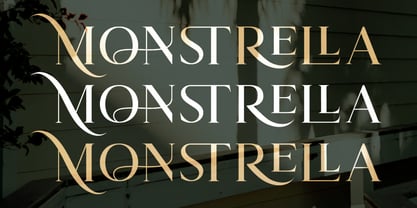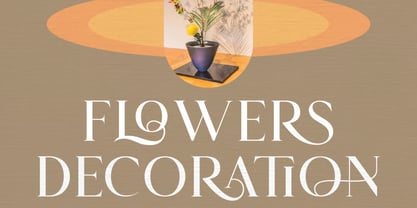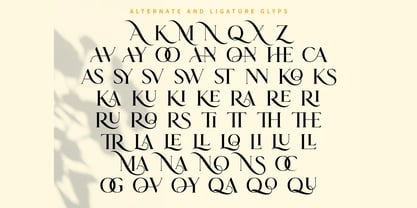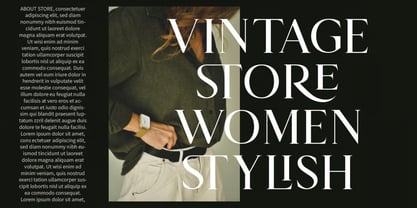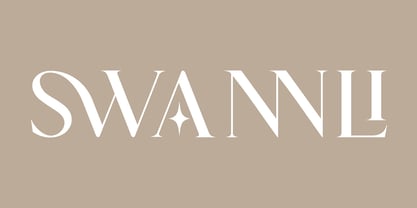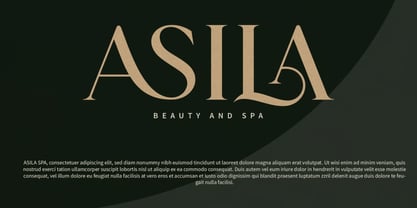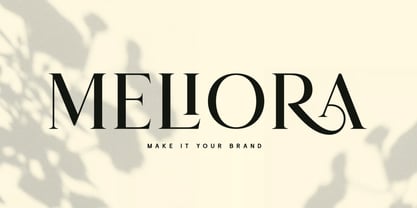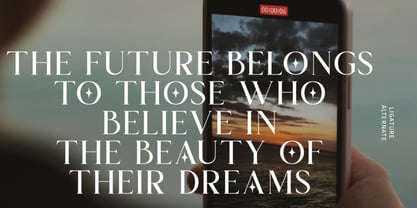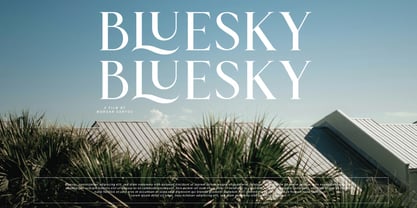
Swannli
Swannli is a balanced, smooth, elegant, and stylish serif font designed to bring sophistication and timeless beauty to a wide range of creative projects. With its graceful letterforms, refined serif details, and polished character, Swannli creates a professional yet charming typographic appearance that works beautifully across both personal and commercial designs.
Its subtle serif structure gives the font a sophisticated and versatile personality, while its stylish alternates and ligatures add a distinctive creative touch. Whether you're designing an elegant invitation, a memorable company logo, a cinematic title, or a premium brand identity, Swannli delivers typography that feels refined, confident, and visually appealing.
Perfect for branding, logo design, wedding invitations, business cards, book covers, movie titles, editorial layouts, packaging, and social media graphics, Swannli is a versatile serif typeface created to elevate your designs with effortless elegance.
Key Features:
• Elegant Serif Design: Refined and sophisticated letterforms with a timeless visual appeal.
• Smooth & Balanced Structure: Carefully crafted proportions for a polished and harmonious appearance.
• Stylish Ligatures: Beautiful character combinations that add creativity and personality.
• Uppercase & Lowercase: Complete alphabet for flexible typography and professional layouts.
• Numerals & Punctuation: Essential characters for a complete design experience.
• Versatile Display Typeface: Works beautifully for logos, headlines, titles, and branding.
Perfect For:
• Logo & Branding Design: Create elegant and memorable company and brand identities.
• Invitation & Wedding Design: Perfect for wedding invitations, greeting cards, menus, and stationery.
• Business Cards: Add a sophisticated typographic finish to professional stationery.
• Movie Titles & Cinematic Design: Create stylish and memorable titles for films and creative projects.
• Book Covers & Titles: Ideal for novels, journals, magazines, and publishing projects.
• Editorial Design: Enhance magazine headlines, layouts, and premium publications.
• Packaging Design: Give products a refined and professional visual identity.
• Social Media Graphics: Create elegant promotional posts, quotes, and branded content.
Elevate your typography with Swannli—a smooth, balanced, elegant, and stylish serif font featuring beautiful ligatures and refined letterforms. Perfect for logos, branding, invitations, movie titles, business cards, book covers, packaging, editorial layouts, and countless other creative projects that demand sophistication and timeless style.